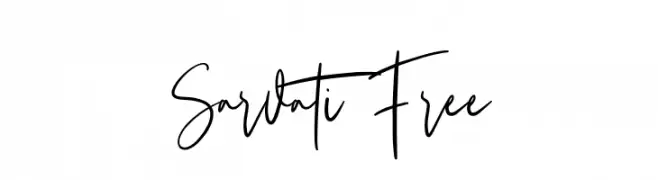
• Sans-Titre Pro Regular
A clean, modern sans-serif font with excellent legibility and balance.
• Santa Claus Deco PERSONAL USE
A festive decorative font featuring detailed holiday-themed symbols and icons.
• Santa Claus PERSONAL USE ONLY
A decorative blackletter font with ornate, medieval-inspired details.
• Santosa Handwriting Sample Reg
A playful, casual handwritten font with smooth, flowing lines.
• Sarfokats Free Regular
An elegant, flowing script font with graceful curves and sophisticated style.
• Sarony
An elegant script font with fluid, cursive strokes and decorative swashes.
• Sarvati Free
A lively handwritten font with dynamic, cursive strokes.
• Sathien_demo
An elegant script font with flowing, cursive style and delicate loops.
• Sathira
A modern, elegant script font with flowing curves and sophisticated loops.
• Sathyn
A graceful and elegant script font with flowing cursive strokes.